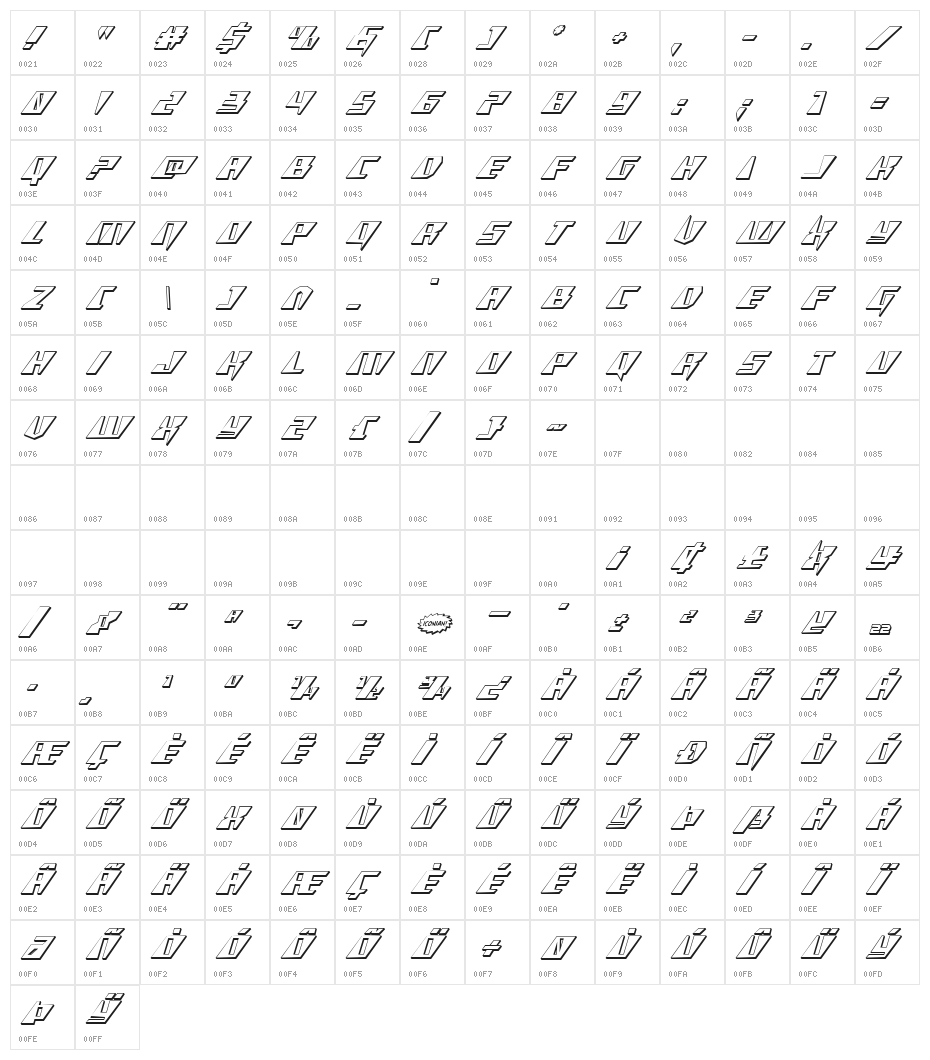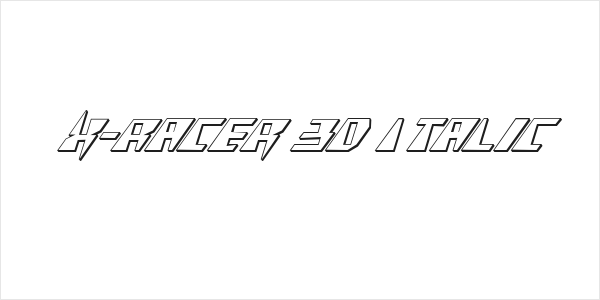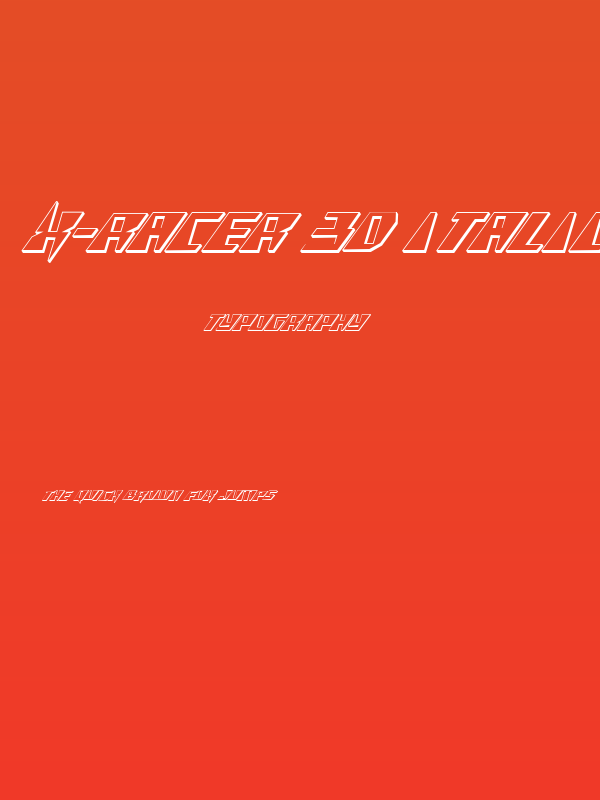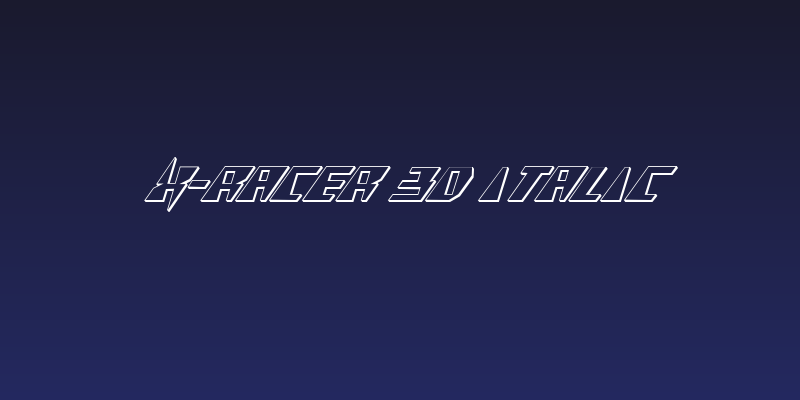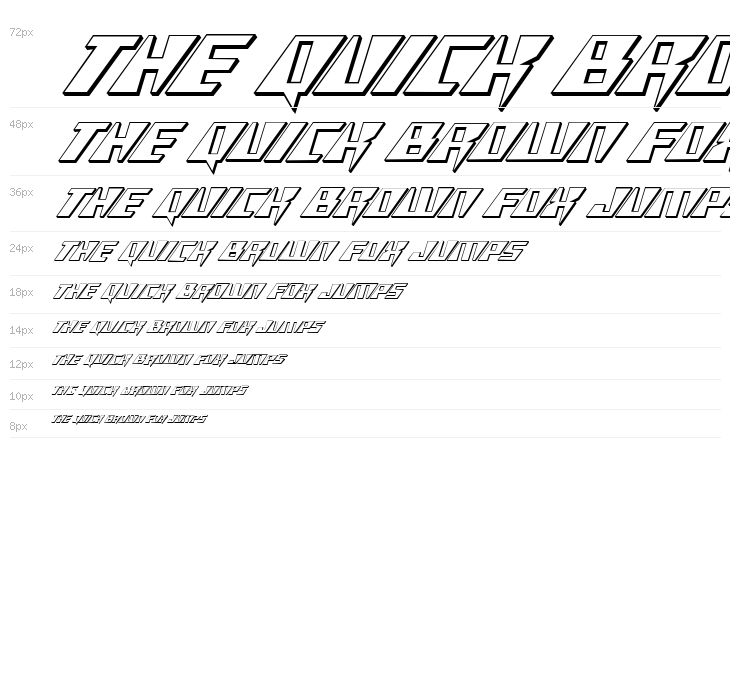
X-Racer 3D Italic Font
| Vorgeschlagene Projekte | Ideal for use in video game titles, sports branding, automotive advertisements, and tech-related projects. |